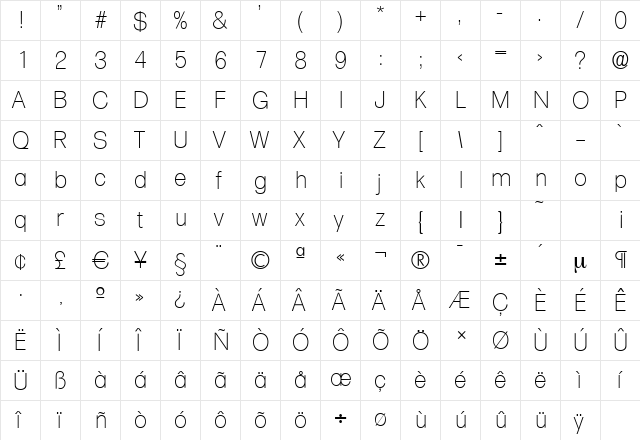
FormulaSerial-Xlight Regular
Design Context for FormulaSerial-Xlight Typeface
FormulaSerial-Xlight takes a measured approach to typography — its balanced proportions and neutral character make it a reliable workhorse for both digital and print work. The delicate stroke weight brings airiness and refinement to layouts.